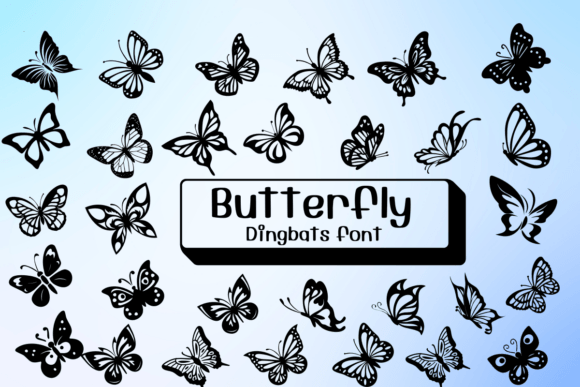
Butterfly Font: Add a Touch of Nature to Your Designs
The Butterfly Font is a unique dingbat font that features a collection of beautiful butterfly designs. This font is perfect for anyone looking to add a decorative, nature-inspired touch to their projects. With its various butterfly shapes and patterns, the Butterfly Font is sure to take your designs to the next level.
What is a Dingbat Font?
A dingbat font is a type of font that features graphical symbols, shapes, and designs instead of traditional letters and numbers. These fonts are often used to add a decorative touch to designs and are commonly used in graphic design, digital art, and crafting. The Butterfly Font is a type of dingbat font that features various butterfly designs, making it perfect for nature-inspired projects.
Features of the Butterfly Font
The Butterfly Font features a wide range of butterfly designs, including:
- Different butterfly shapes and patterns
- Various wing designs, including realistic and stylized illustrations
- A range of butterfly sizes and orientations
- Beautiful, intricate details that make each butterfly unique
With its vast collection of butterfly designs, the Butterfly Font is perfect for a variety of projects, from scrapbooking and card making to digital art and graphic design.
Uses of the Butterfly Font
The Butterfly Font can be used in a variety of ways to add a decorative touch to your projects. Here are some ideas:
- Scrapbooking: Use the Butterfly Font to add a touch of nature to your scrapbook pages. You can use the butterflies to highlight important dates, names, or events.
- Card Making: Add a personal touch to your greeting cards with the Butterfly Font. You can use the butterflies to create beautiful borders, frames, or embellishments.
- Digital Art: Use the Butterfly Font to create stunning digital art pieces. You can combine the butterflies with other design elements to create unique and eye-catching compositions.
- Graphic Design: The Butterfly Font can be used in graphic design to add a touch of whimsy and playfulness to your designs. You can use the butterflies to create logos, icons, or other design elements.
Benefits of Using the Butterfly Font
There are several benefits to using the Butterfly Font in your projects. Here are a few:
- Unique Designs: The Butterfly Font features unique and beautiful designs that will set your projects apart from others.
- Versatile: The Butterfly Font can be used in a variety of projects, from scrapbooking to graphic design.
- Nature-Inspired: The Butterfly Font features nature-inspired designs that will add a touch of whimsy and playfulness to your projects.
Tips and Variations
Here are some tips and variations to help you get the most out of the Butterfly Font:
- Combine with Other Fonts: Combine the Butterfly Font with other fonts to create unique and eye-catching compositions.
- Experiment with Colors: Experiment with different colors and patterns to add depth and interest to your designs.
- Use as a Background: Use the Butterfly Font as a background element to add texture and interest to your designs.
- Create a Focal Point: Use the Butterfly Font to create a focal point in your design, drawing attention to a specific element or message.
The Butterfly Font is a unique and beautiful dingbat font that features a collection of stunning butterfly designs. With its versatility, ease of use, and nature-inspired designs, the Butterfly Font is perfect for a variety of projects, from scrapbooking to graphic design. Whether you’re looking to add a touch of whimsy or create a stunning digital art piece, the Butterfly Font is sure to take your designs to the next level.